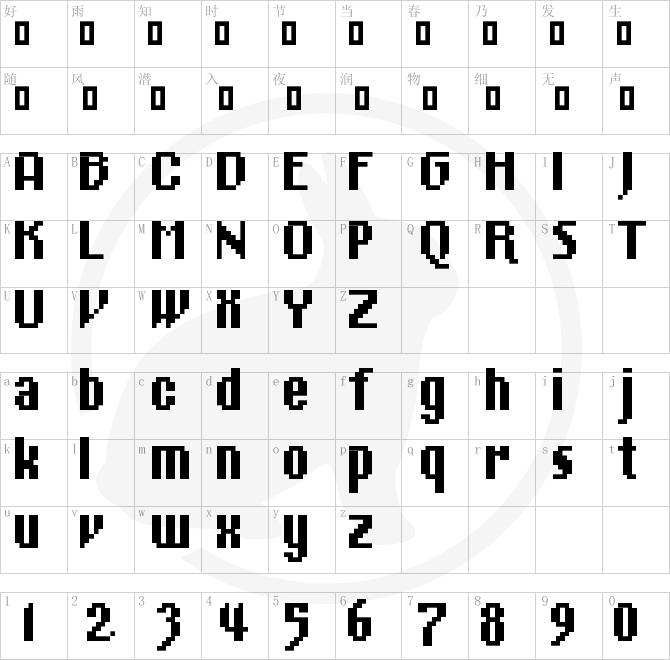
- Font Name:01Cinematix
01CinematixBold.ttf is a very beautiful artistic font, 01CinematixBold.ttf is widely used in the design and printing of various books and pictures,01CinematixBold.ttf has a strong visual impact,01CinematixBold.ttf is a commonly used font in newspapers, magazines and books, and is used in posters, e-commerce Poster design, store design, logo design, font design and other fields.01CinematixBold.